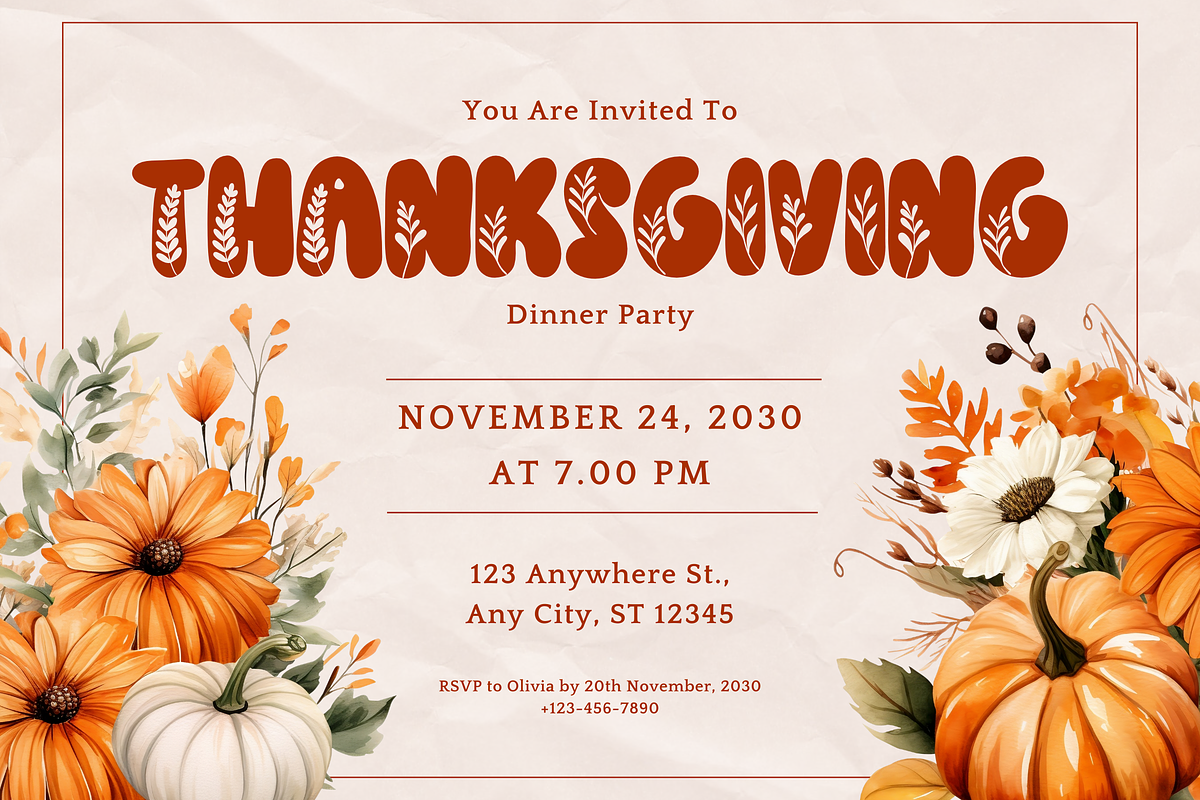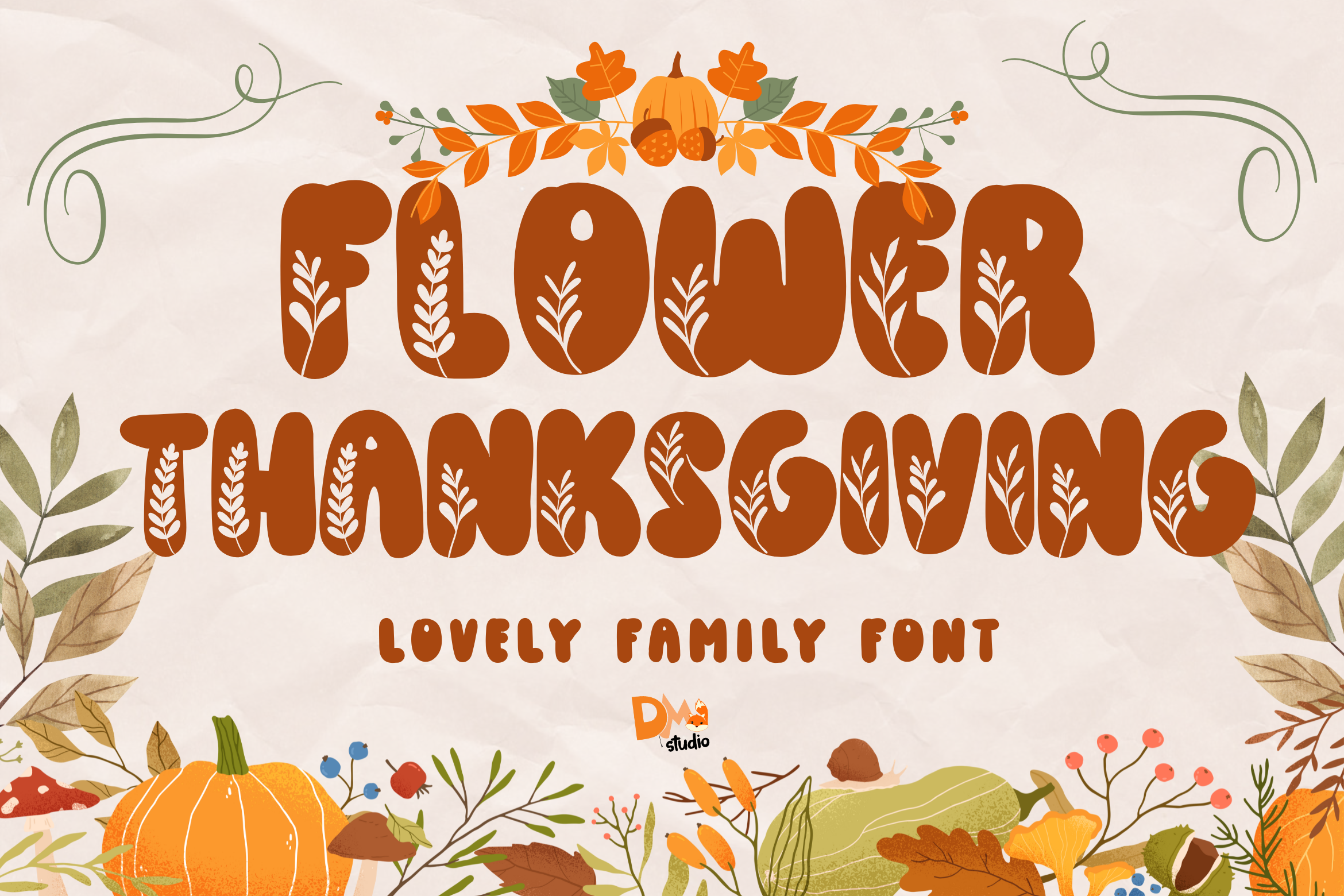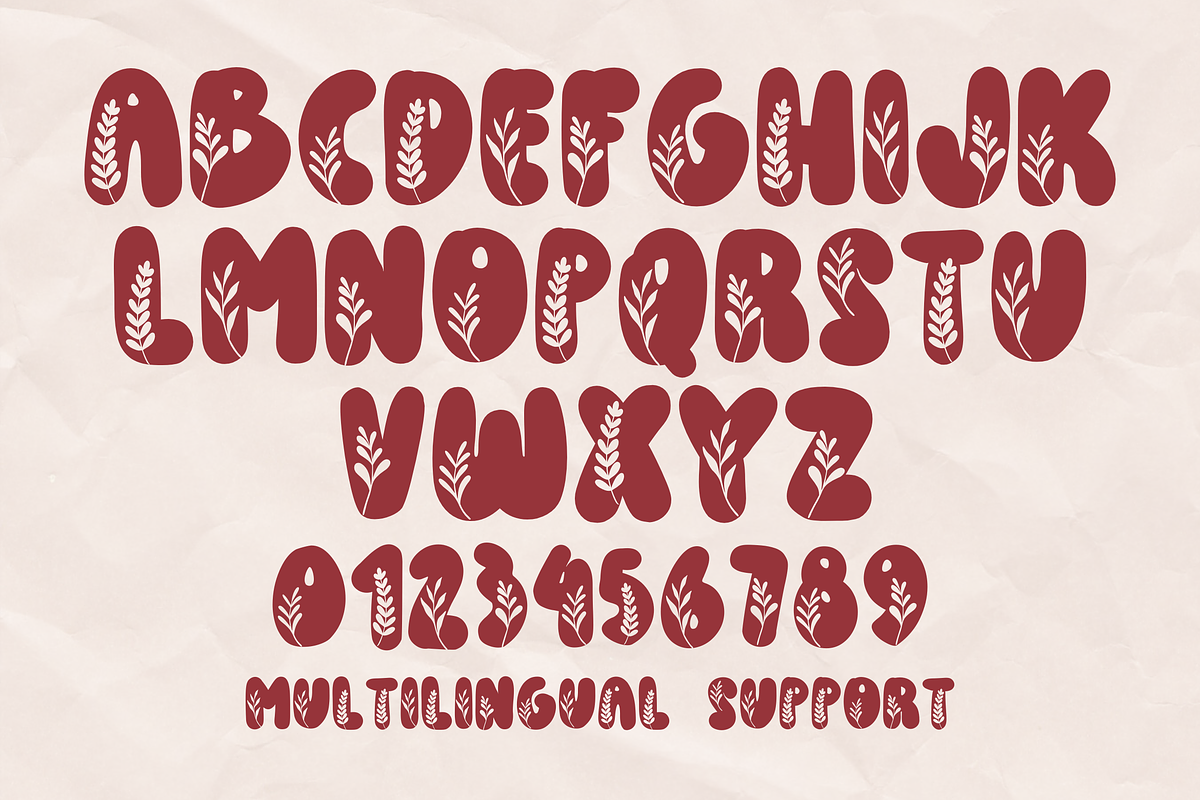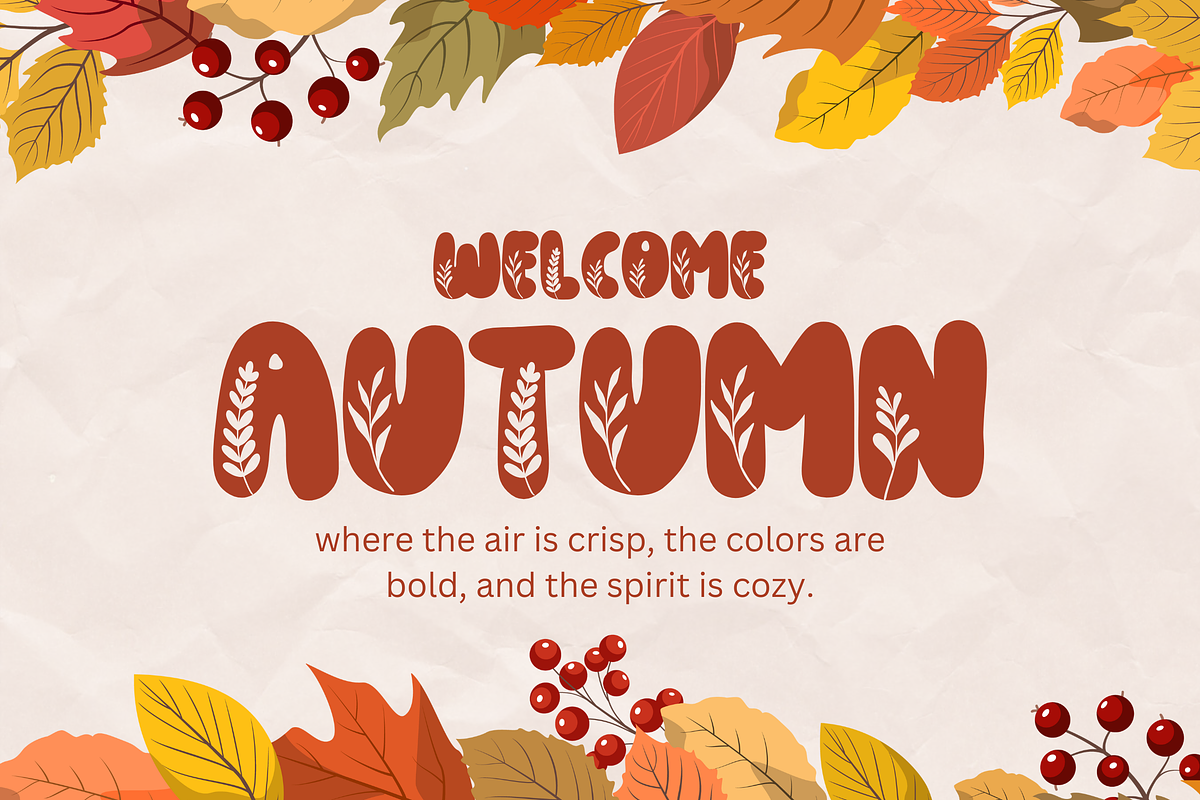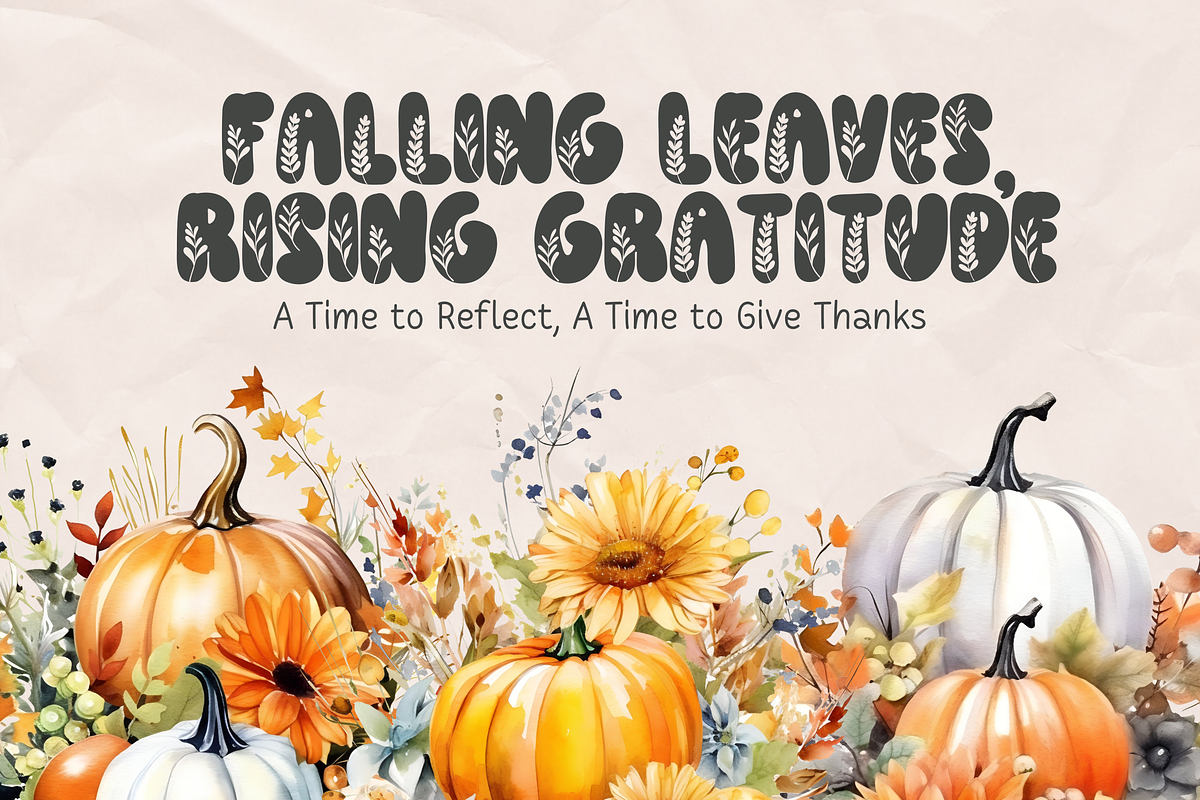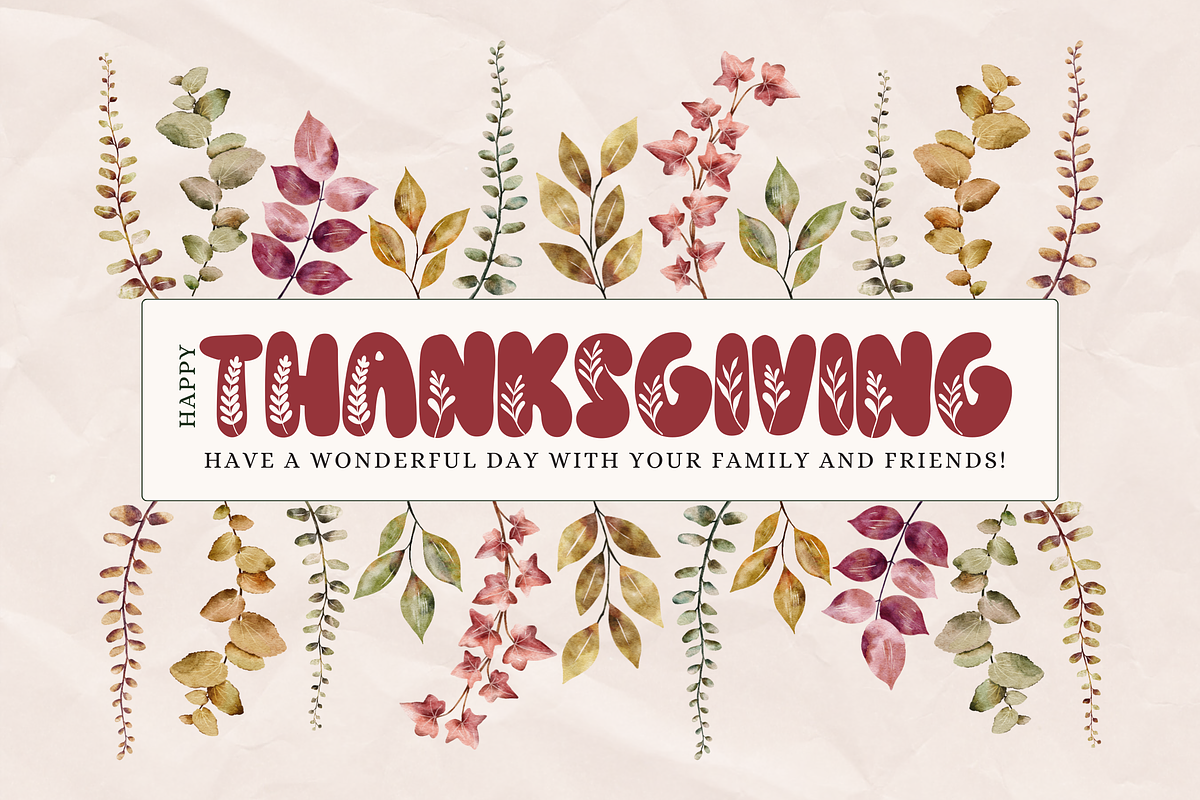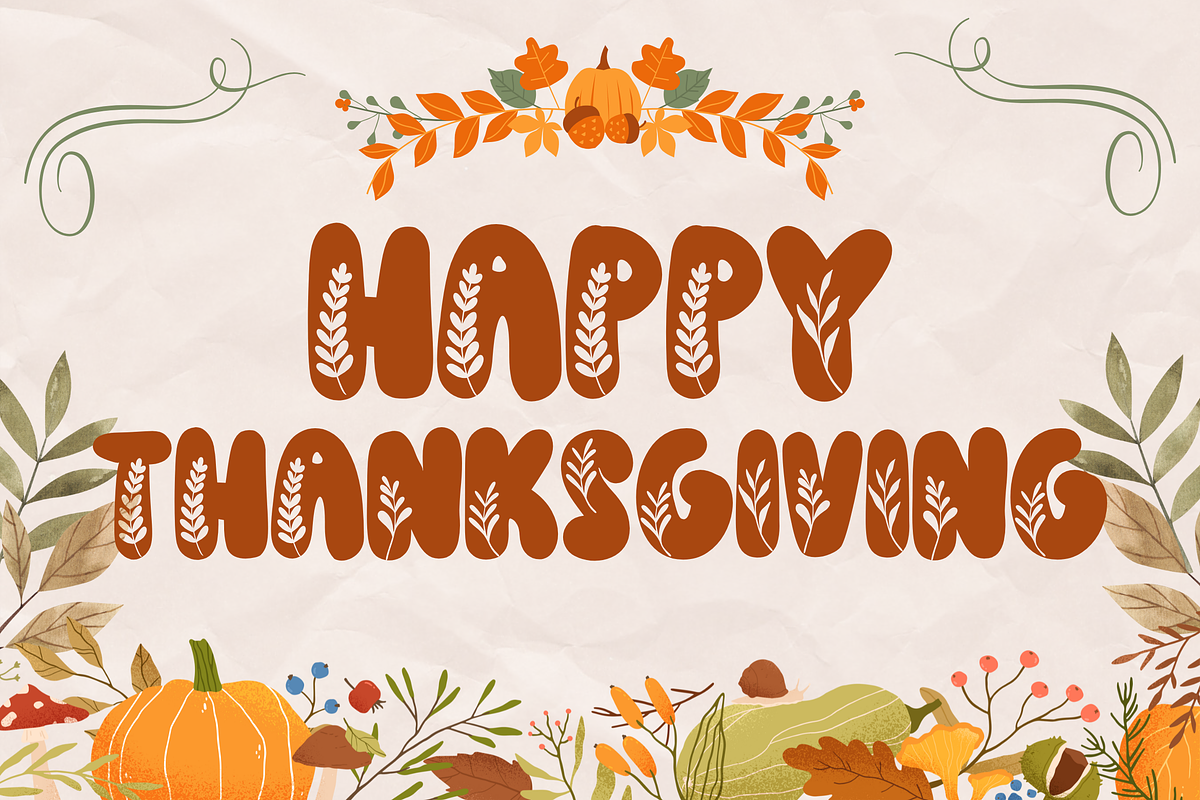
Flower Thanksgiving Font
Celebrate the warmth and beauty of the fall season with Flower Thanksgiving, a charming and playful family font! This lovely display font features a unique design with floral and leafy elements that evoke the spirit of autumn. Perfect for adding a cozy, festive touch to your Thanksgiving and fall-themed projects, Flower Thanksgiving brings a rustic and organic feel to every design.
Whether you’re creating Thanksgiving invitations, seasonal social media posts, holiday crafts, or autumn-inspired greeting cards, this font is sure to add a touch of seasonal charm and elegance. Its bold, decorative letters adorned with leaves and plants give it a natural, earthy appeal that beautifully complements fall colors and themes.
- Floral & Leaf Accents: Each letter incorporates unique plant-inspired elements for a nature-loving aesthetic.
- Bold & Playful Style: Perfect for grabbing attention in seasonal designs.
- Autumnal Vibe: Ideal for Thanksgiving, fall festivities, and harvest themes.